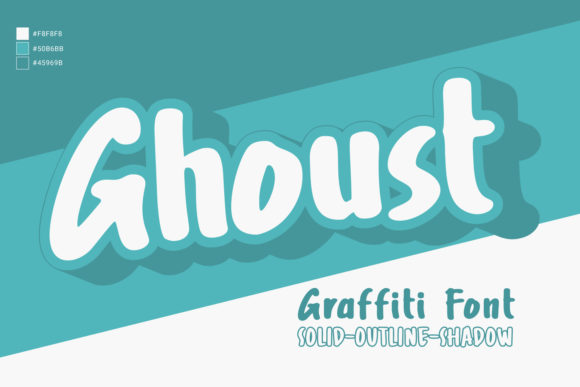
Welcome to the hauntingly beautiful world of Ghoust Font, a display font family that will transport you to the realm of urban art and graffiti. Created by the visionary minds at Cititype, Ghoust Font is a captivating fusion of artistry, authenticity, and versatility, making it the ultimate choice for designers seeking to make a bold statement.
Unleash your creativity with Ghoust Font's three mesmerizing variations, each possessing its own unique personality. From the playfully energetic "Ghoust Fill," to the elegantly outlined "Ghoust Outline," and the devilishly distressed "Ghoust Rough," this font family provides endless possibilities for crafting captivating visuals that demand attention.
Step into the shoes of a graffiti artist and effortlessly create stunning designs that capture the raw energy and rebellious spirit of street art. Mix and match the three variations to achieve an authentic graffiti look that reflects your personal style and vision. Ghoust Font is your gateway to expressing yourself in a way that is both visually captivating and emotionally resonant.
With Ghoust Font as your creative companion, you'll find yourself immersed in a whirlwind of design possibilities. Create eye-catching logos that leap off the screen, design posters that ignite imaginations, and craft social media graphics that command attention. Ghoust Font's versatility knows no bounds, making it the perfect choice for a wide range of projects, from edgy streetwear designs to haunting Halloween posters.
As you explore the depths of Ghoust Font's versatility, you'll discover a treasure trove of creative opportunities. Its graffiti-inspired aesthetic lends itself perfectly to creating designs that resonate with a youthful, urban audience, making it ideal for branding, marketing, and advertising campaigns that target this demographic.
Take your designs to the next level with Ghoust Font, a font family that embodies the essence of urban art and graffiti. Its meticulously crafted characters, authentic variations, and endless creative possibilities will unleash your inner artist and leave a lasting impression on your audience. Embrace the spirit of rebellion, express your individuality, and let Ghoust Font be your guide into the captivating world of street art-inspired typography.